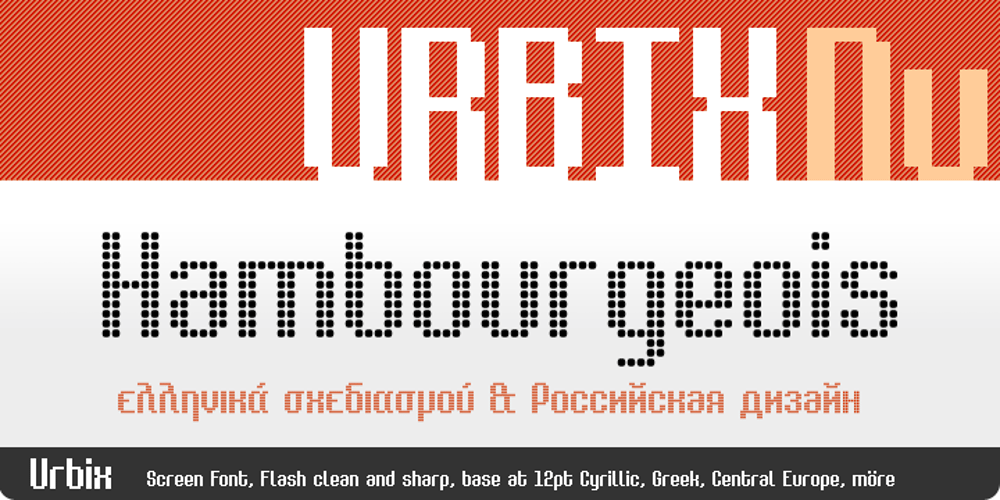
Urbix Nu Font Family was designed by Michel Troy and published by UrbanPixel. Urbix Nu contains 22 styles and family package options. The best of both worlds: good for small screen resolutions and nice output at larger sizes.